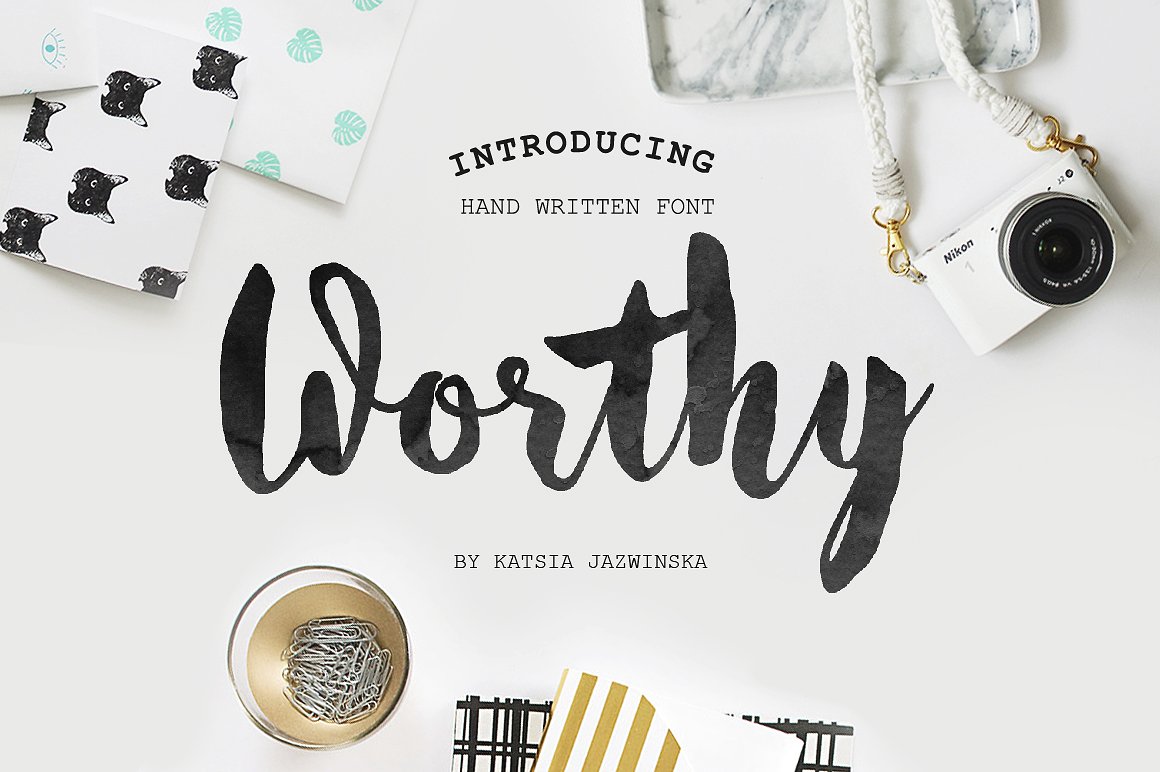
Worthy Roman&Cyrillic Script
If you are looking for a handmade brush font with bold yet stylish characters, Worthy is the one for you! It includes basic punctuation, numbers, roman and cyrillic typeface.
| Designer Name: | Katsia Jazwinska |
| Classification: | Brush Fonts, Script Fonts |